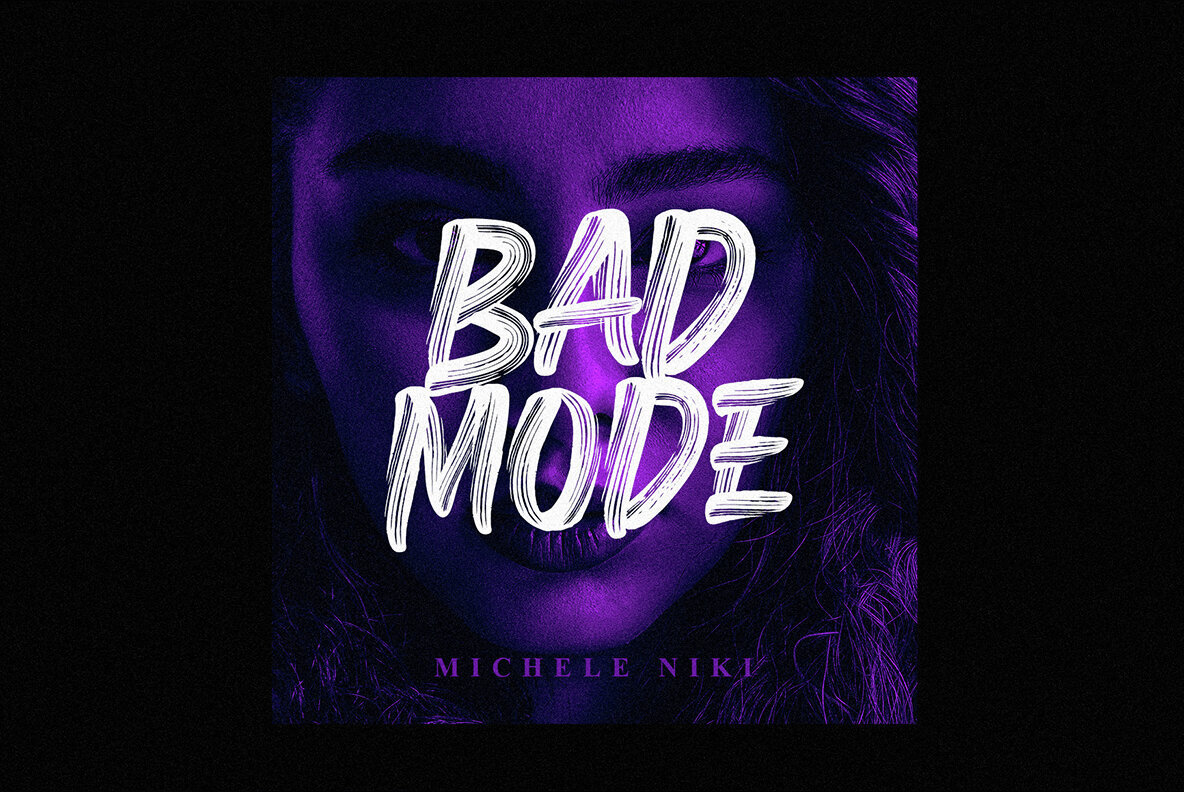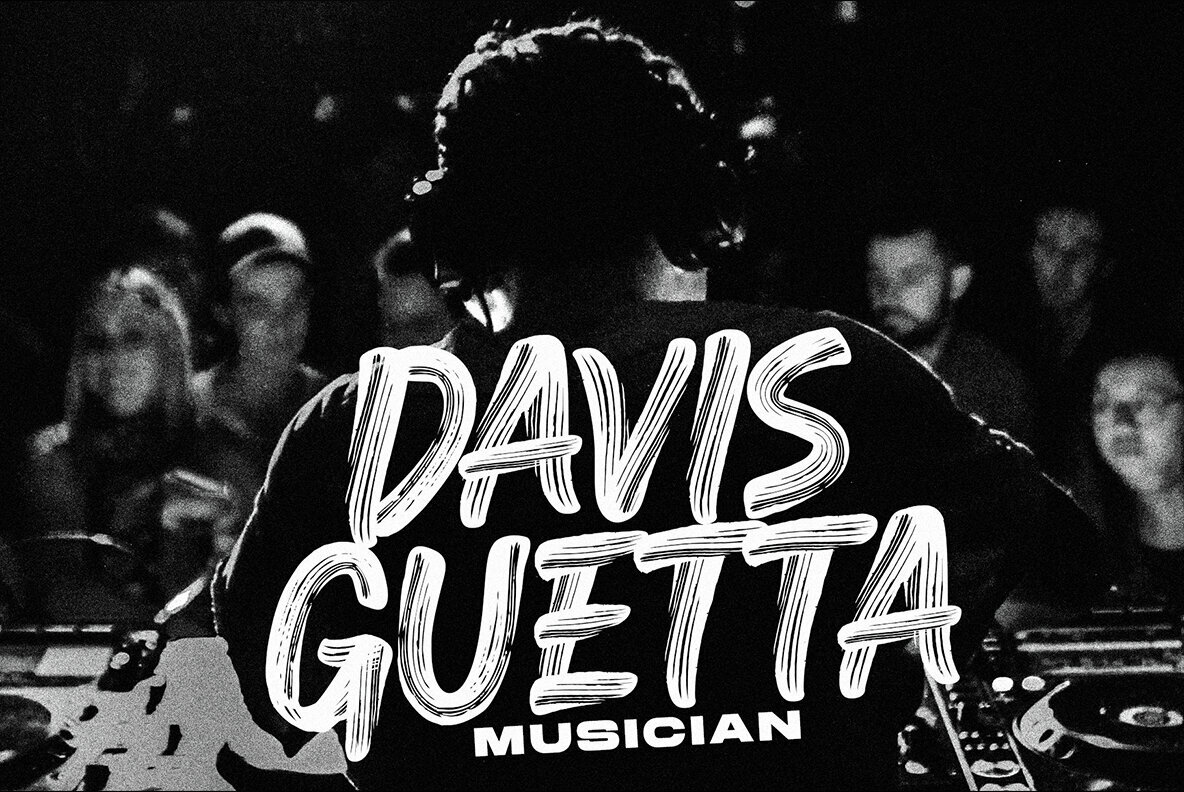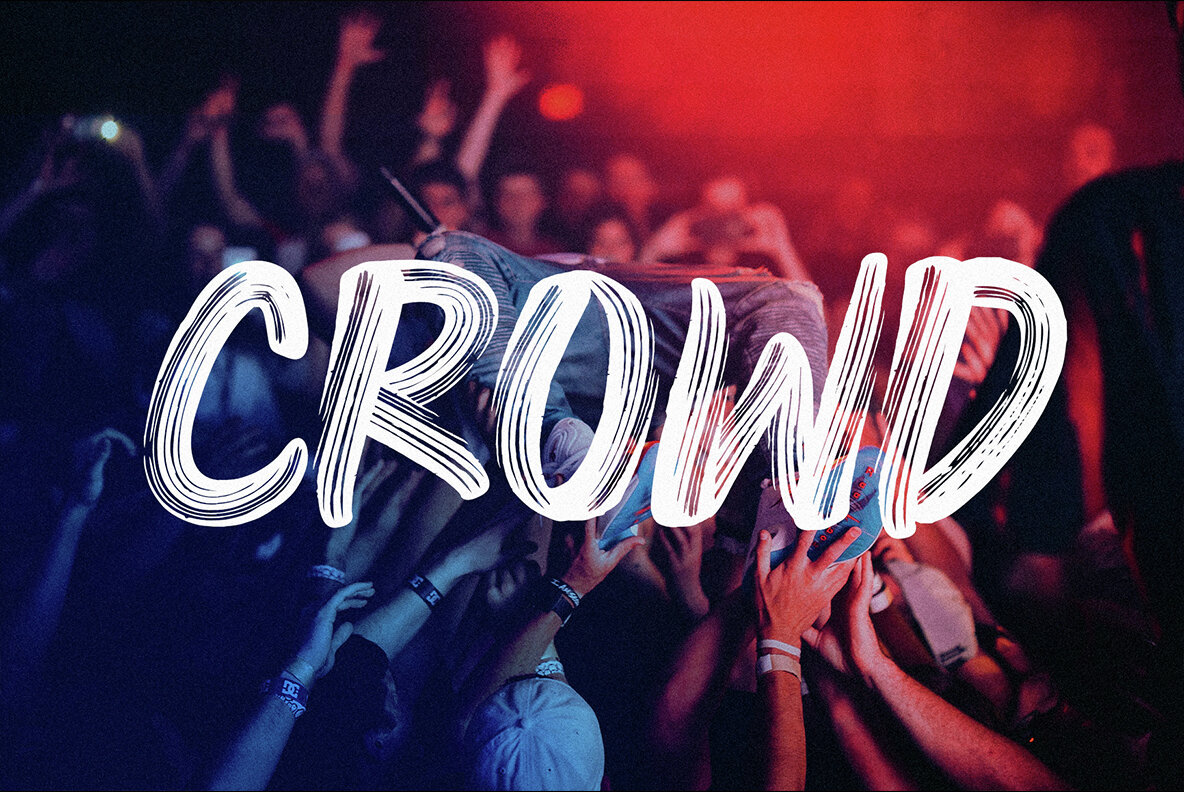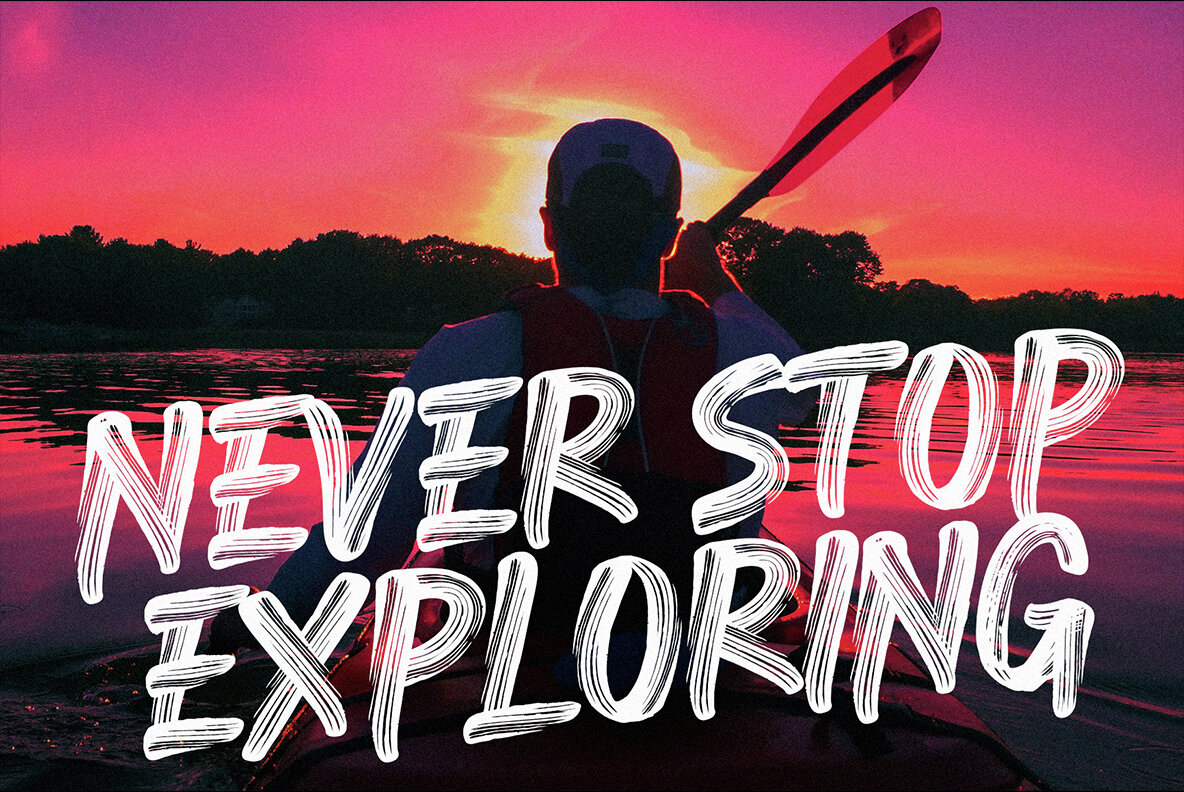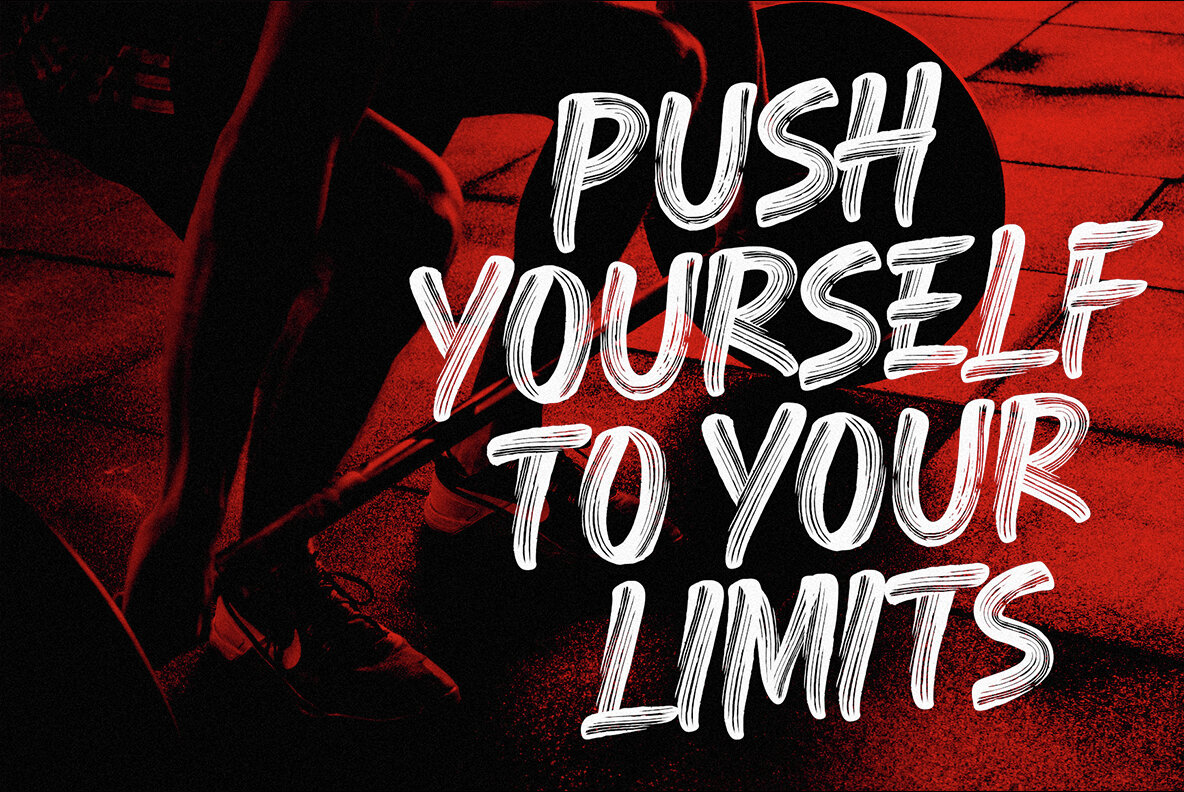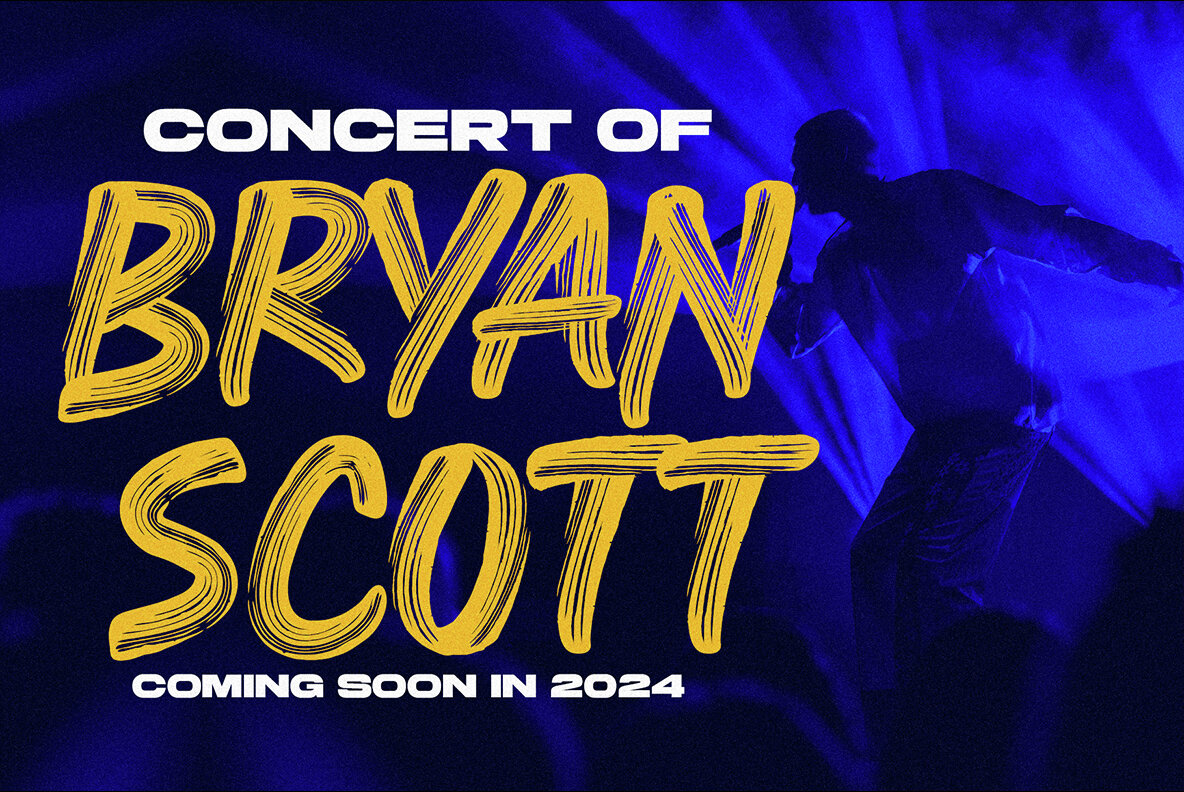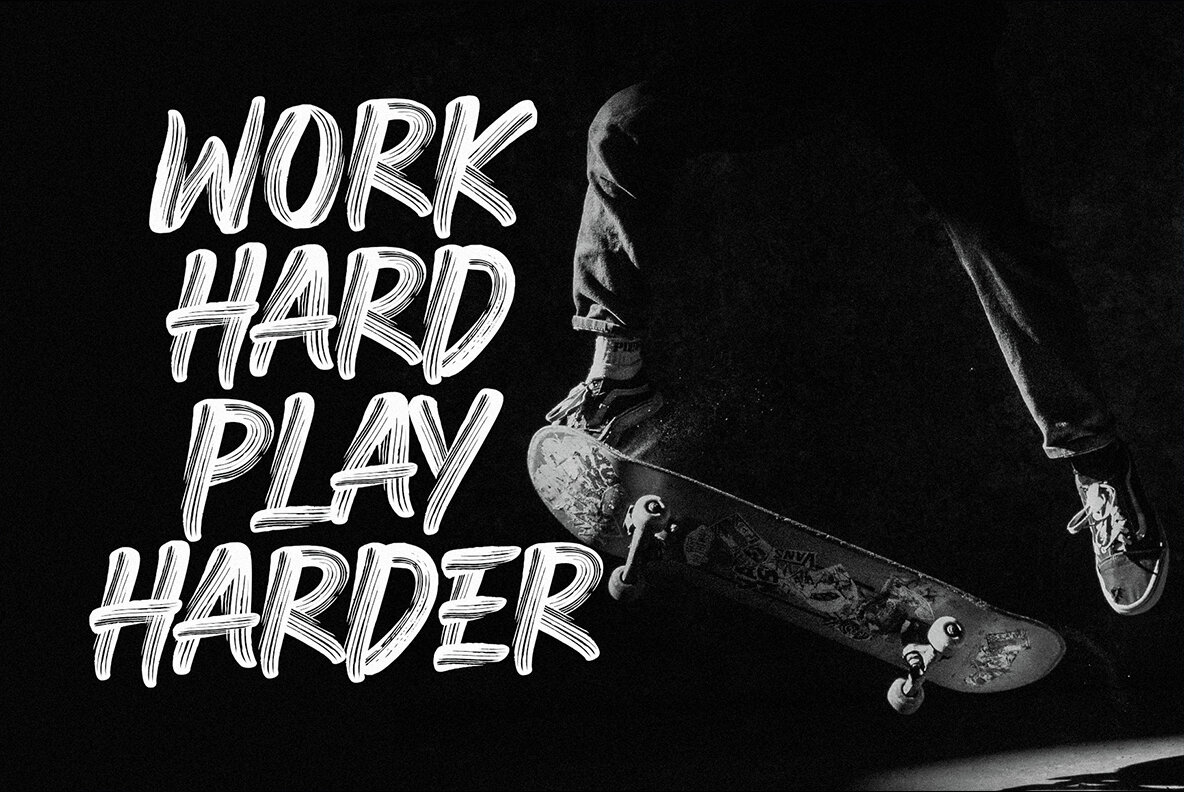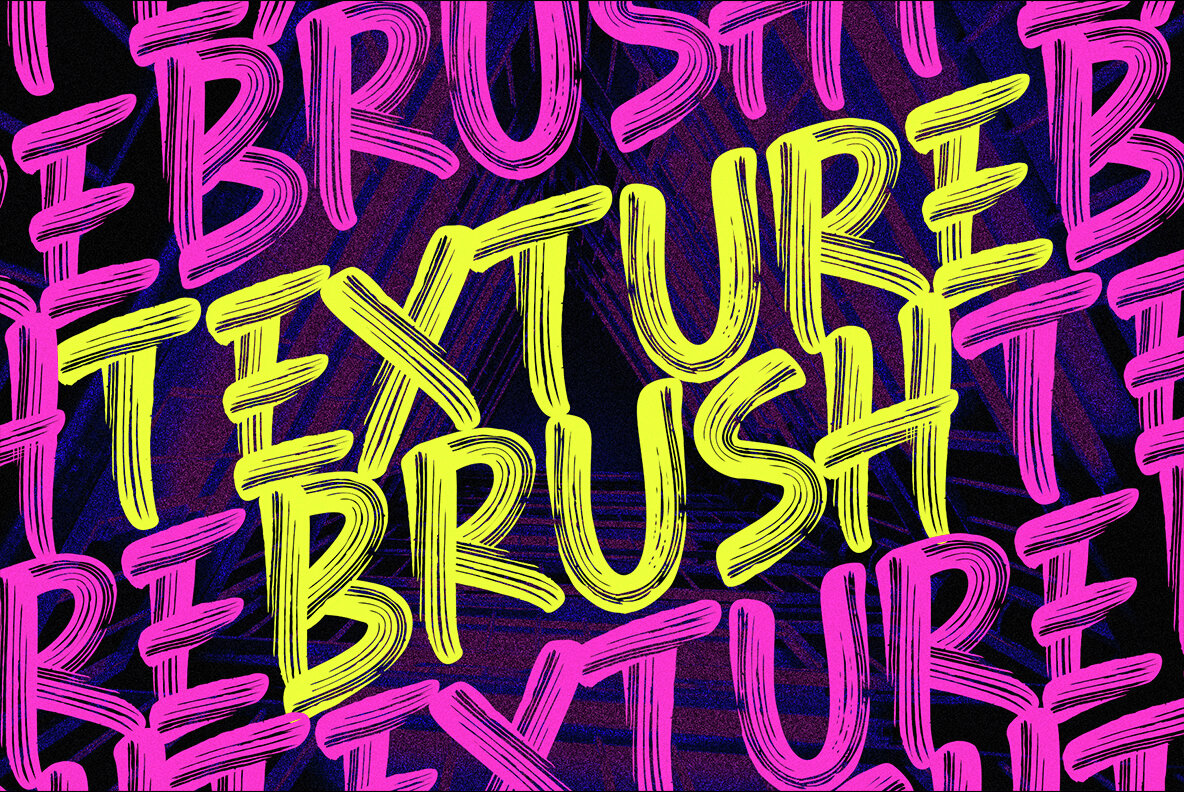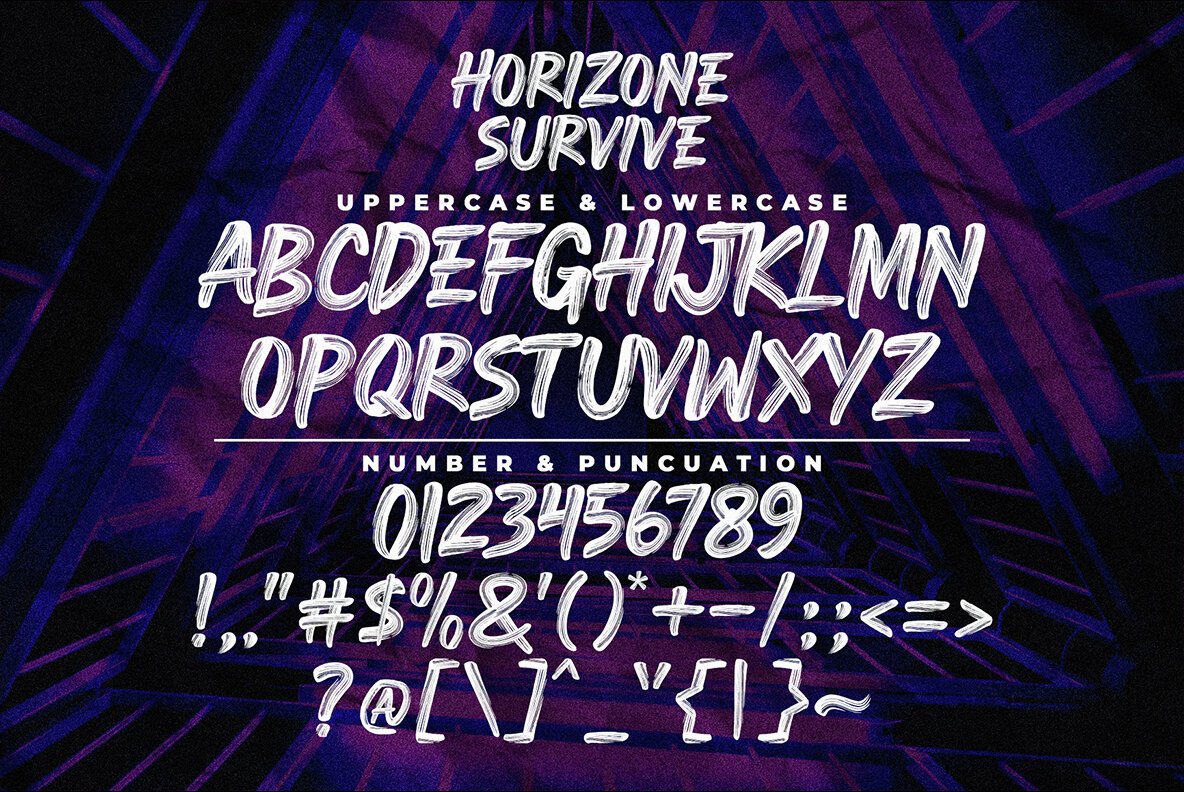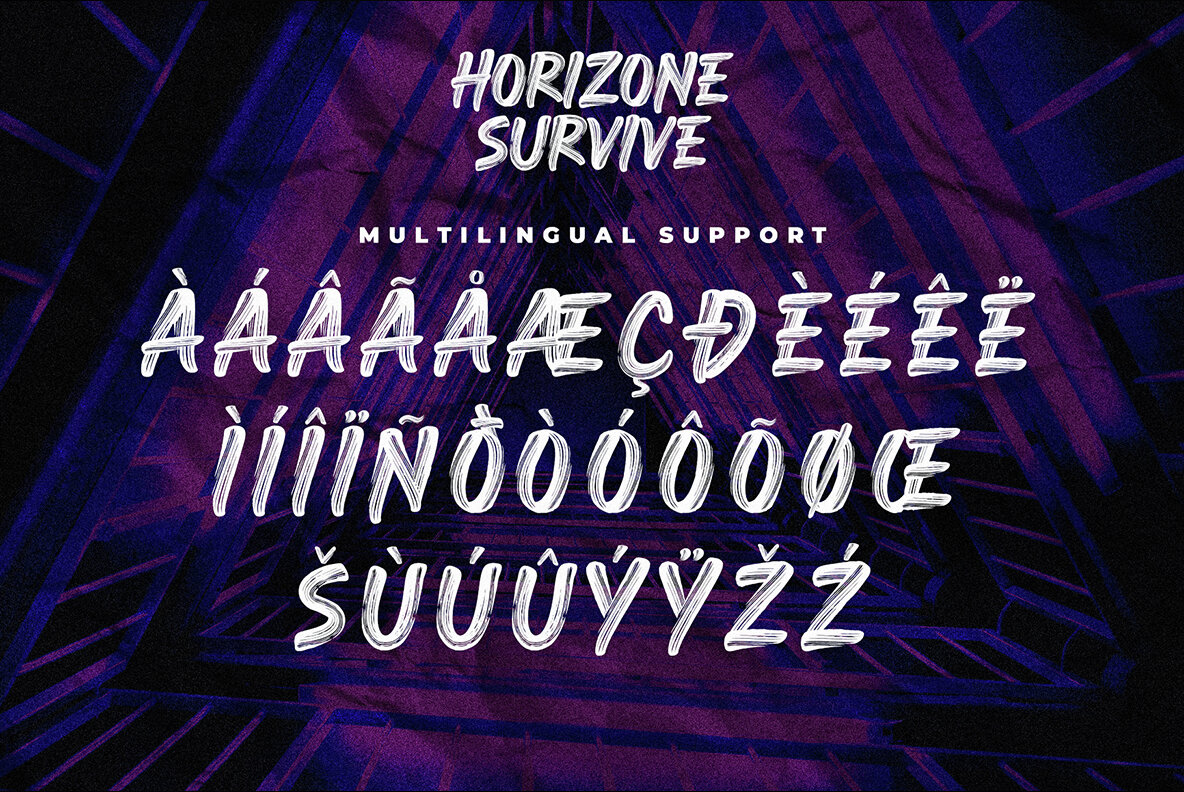
Horizone Survive Font
Horizone Survive
Introducing Horizone Survive, a brush style font carved with exquisite detail, brought to life by Multype Studio. Strikingly authentic, it brings a natural touch to any design endeavor, thereby setting it apart from the rest. Designed with meticulousness, it effortlessly infuses warmth into your creative output, making it all the more appealing. Suitable for a wide array of applications, Horizone Survive is an ideal choice for logos, branding initiatives, and various product designs. Its distinctive brush style also lends itself perfectly to product packaging, marking a memorable influence. Whether gracing photography watermark or adding character to social media graphics, its unique style makes it a versatile addition to your design toolkit.Unleash Creativity with Horizone Survive Font